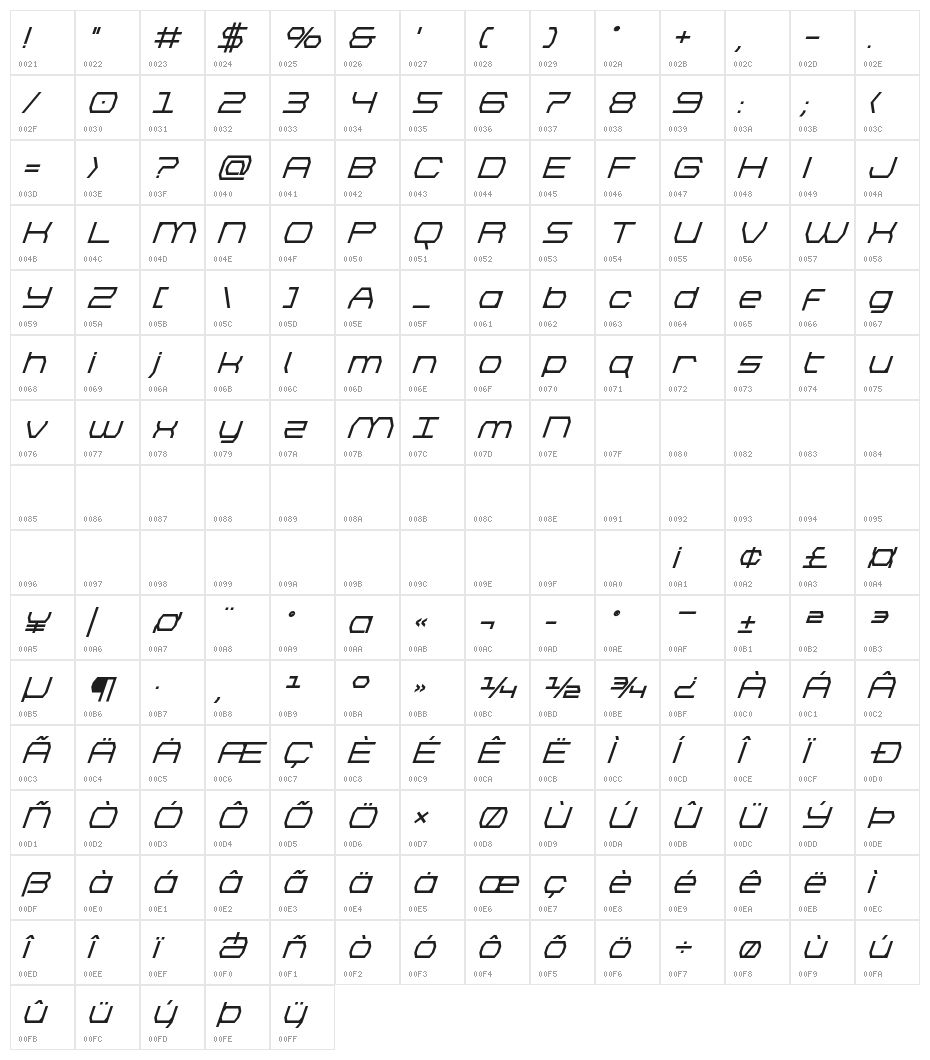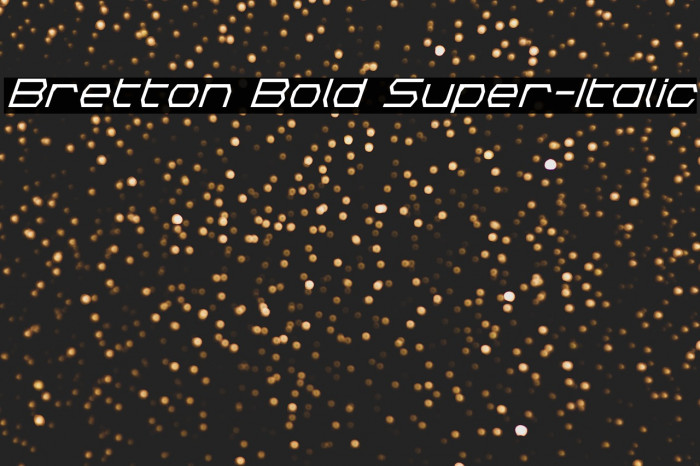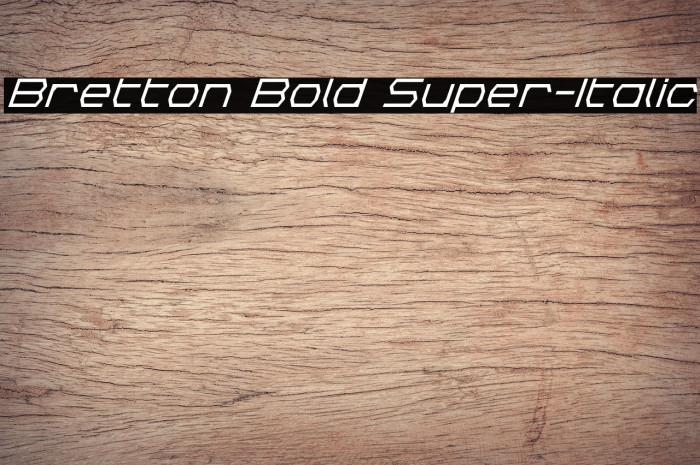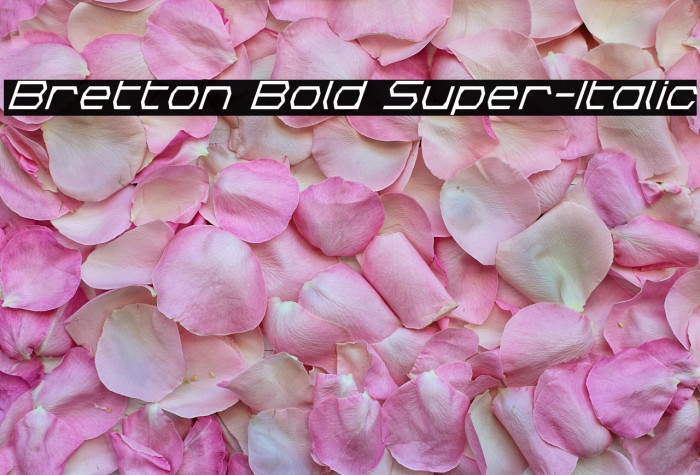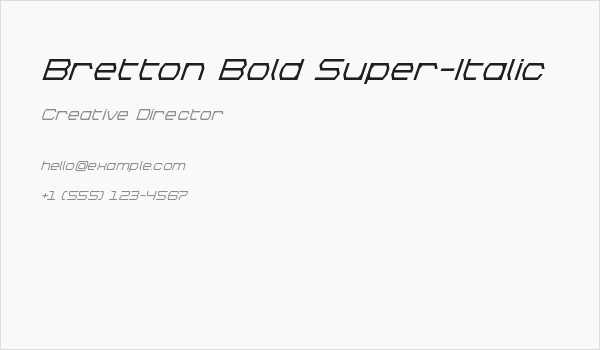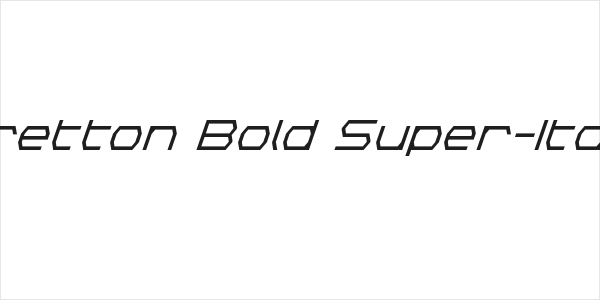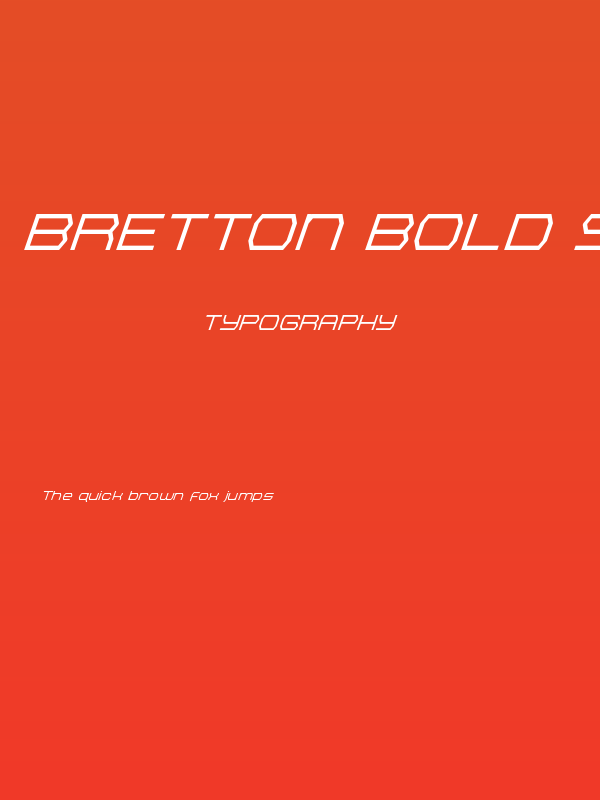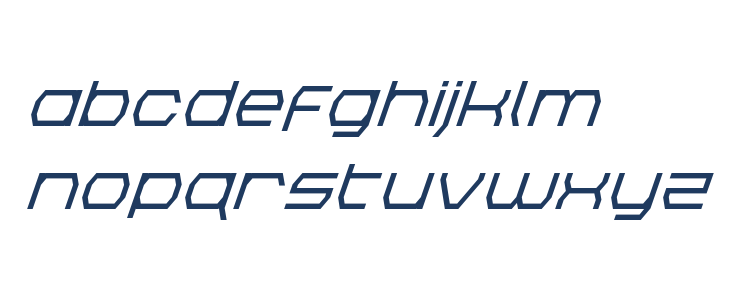
Bretton Bold Super-Italic Font
Bretton Bold Super-Italic Description
This font exhibits a bold and dynamic style with a distinct italic slant, giving it a sense of motion and energy. The characters are constructed with angular, geometric shapes, creating a futuristic and technical appearance. The uppercase and lowercase letters maintain a consistent structure, while the numerals and special characters complement the overall design. The font's sharp edges and clean lines contribute to its modern aesthetic, making it suitable for projects that require a contemporary and assertive look.
| Proposed Projects | Ideal for technology branding, sports team logos, futuristic posters, and video game titles. |